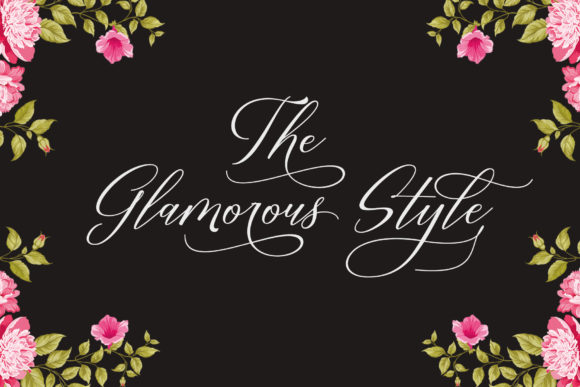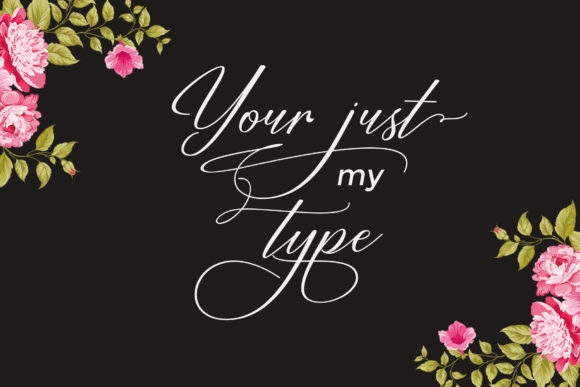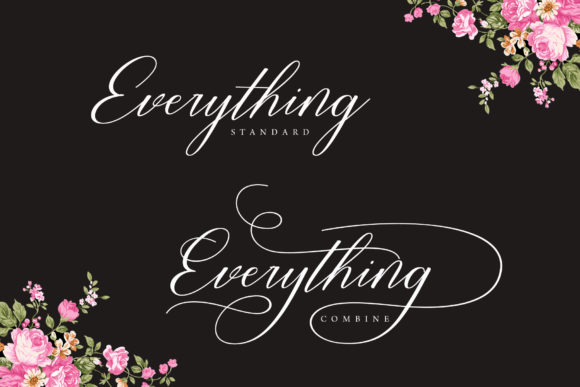
Introduction to Restiany Script Font
The Restiany is a beautiful and attractive handwritten calligraphy font.
Its included scratches give it a modern and challenging style It’s elegant and feminine style is perfect for wedding invitations, signage, headlines, logos, packing, product branding, and much more.
Key Features of Restiany Script Font